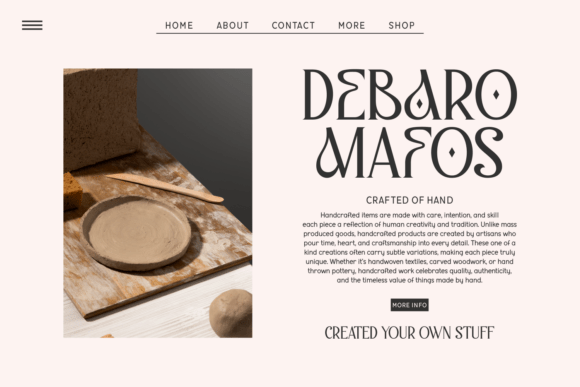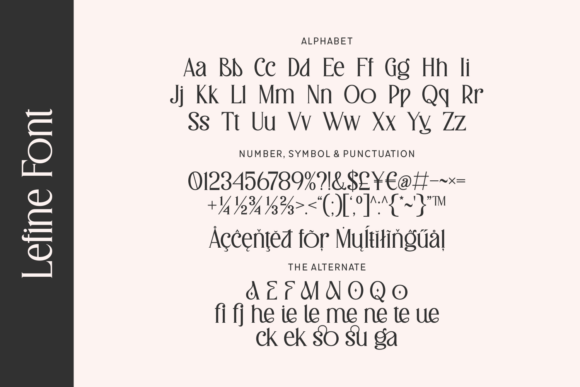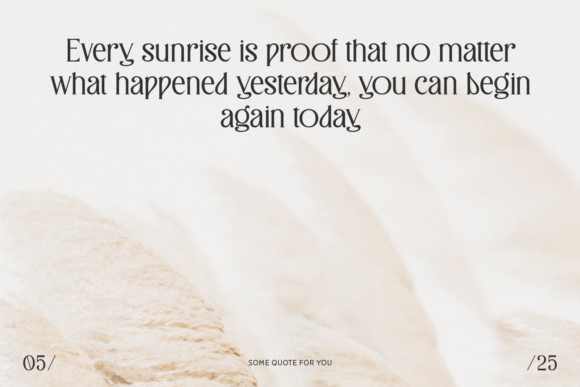
Introduction to Lefine Font
Lefine is a modern beauty serif typeface with a graceful silhouette and refined curves.
Designed for elegance and clarity, it’s ideal for beauty brands, editorial layouts, minimalist packaging, and stylish social media .
Key Features of Lefine Font
Why Choose Lefine Font?